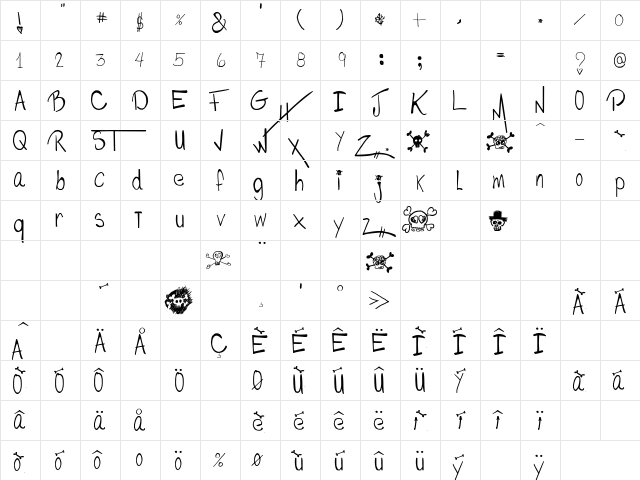
Philom讥 & Ephrem Regular
Design Context for Philom讥 & Ephrem Typeface
Philom讥 & Ephrem is a composed and adaptable typeface that performs quietly and consistently across a wide range of design contexts.